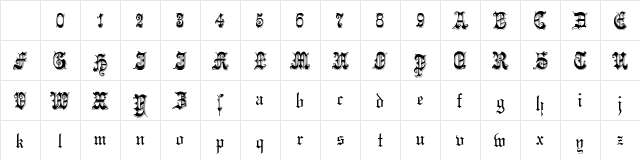
Phantasinian is a composed and adaptable typeface that performs quietly and consistently across a wide range of design contexts.
Pro Tip: Use Phantasinian in both headline and body roles to test its range before committing to a single application.